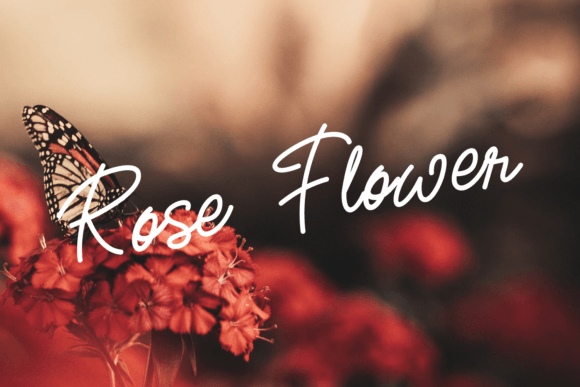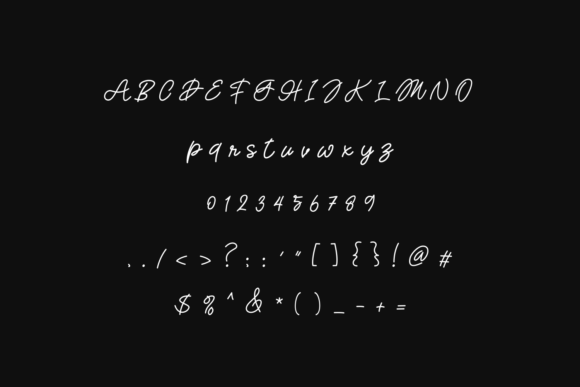
Rastico Font
About Rastico Font
The Rastico Font Download is a sweet and friendly handwritten typeface designed to bring warmth and originality to your projects. With its natural strokes and unique letterforms, Rastico captures the beauty of true handwriting, making it an ideal choice for designs that need a personal, heartfelt touch.
Crafted with attention to detail, Rastico offers both charm and functionality. Whether you’re creating wedding invitations, quotes, product packaging, or branding materials, this font adapts seamlessly and ensures your work looks professional while retaining a handcrafted appeal.
Features of Rastico Font
• Sweet and friendly handwritten style with natural flow
• Unique and balanced strokes that enhance visual appeal
• Full character set including uppercase, lowercase, numerals, and punctuation
• Smooth readability across print, digital, and craft projects
• Authentic handwritten look perfect for adding personality to designs
Best Uses for Rastico Font
Why Choose Rastico Font
The Rastico Font Download stands out because it balances charming handwritten authenticity with clarity and usability. Unlike decorative fonts that may sacrifice readability, Rastico is carefully crafted to remain neat and professional across all design contexts.
Designers love Rastico for its warm personality and versatility. Its handwritten charm makes designs feel approachable, while its balanced structure ensures that even large projects like posters or branding remain stylish and easy to read.
The Rastico Font Download is a sweet and unique handwritten script that brings charm, warmth, and originality to your creative work. With its natural strokes, versatile applications, and authentic style, it’s the perfect addition to your font library.